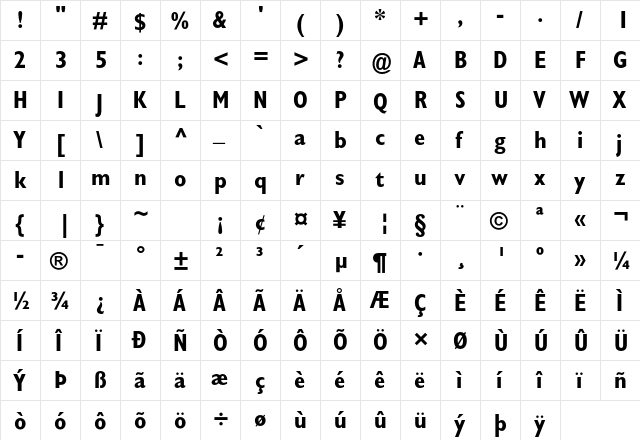
Gill Sans Std Bold Condensed
| Designer | Eric Gill |
Design Context for Gill Sans Std Typeface
Gill Sans Std offers clean, dependable letterforms without strong stylistic allegiance, making it a practical choice for designers who need flexibility. The heavy weight commands attention and anchors typographic hierarchies. Its narrow stance lets it pack a punch even in space-constrained designs.
Pro Tip: Use Gill Sans Std in both headline and body roles to test its range before committing to a single application.